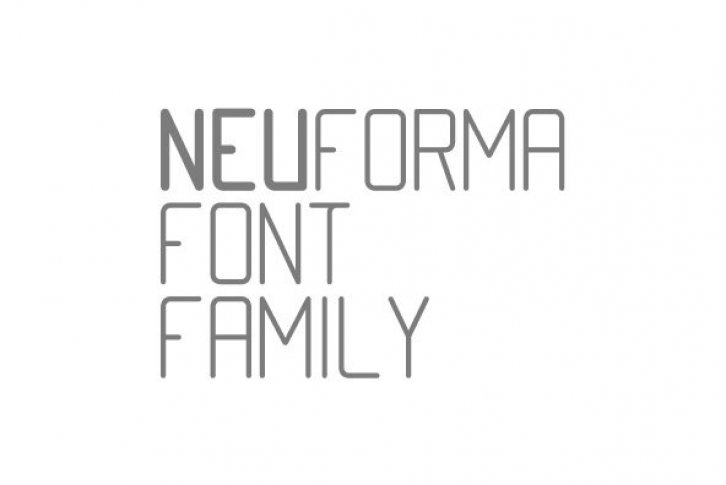
Neuforma was Inspired by the Scandinavian design throughout Iceland, Sweden, Norway, and Finland. Designed by Ludovic Riffault, Neuforma is a brand new Nordic inspired type family. With 4 fully developed weights. Neuforma gives you full creative freedom for all kinds of projects.